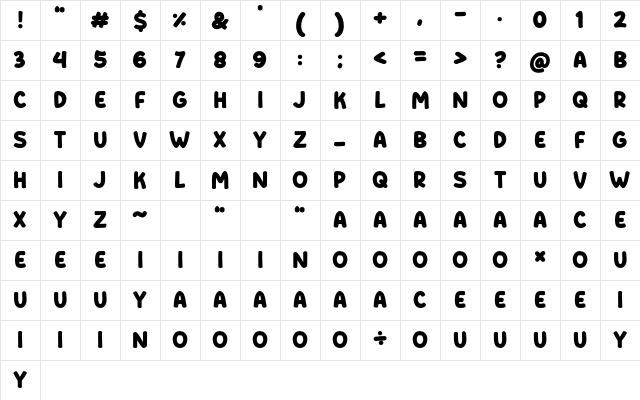
Banana Stick Regular Free Font
Banana Stick Regular
Design Context for Banana Stick
Banana Stick is a composed and adaptable typeface that performs quietly and consistently across a wide range of design contexts.